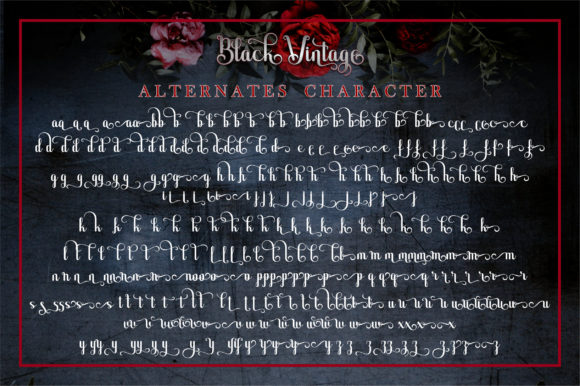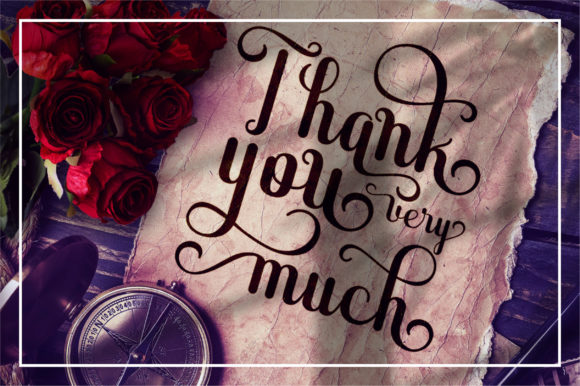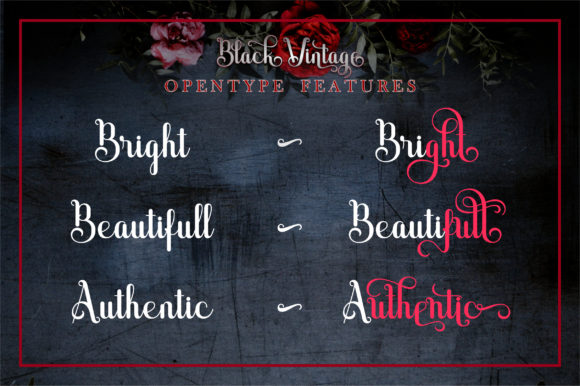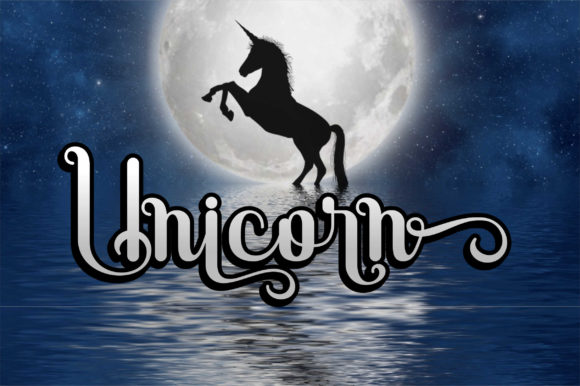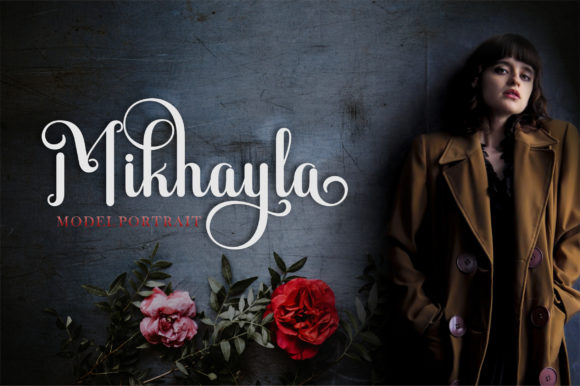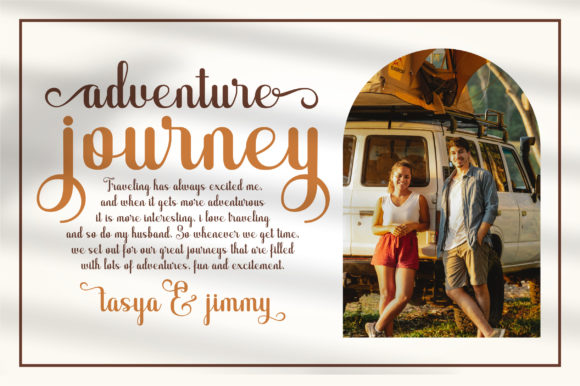
About Black Vintage Font
Black Vintage is a playful and modern script. It looks stunning on wedding invitations, thank you cards, quotes, greeting cards, logos, business cards and any other designs. Black Vintage is PUA encoded which means you can access all of the glyphs and swashes with ease!Â